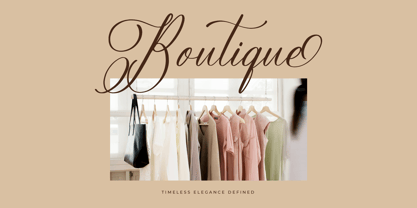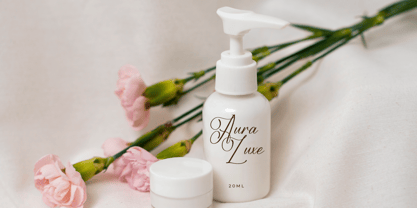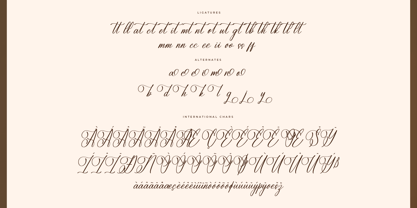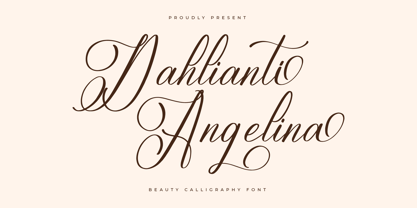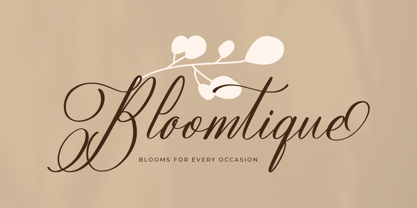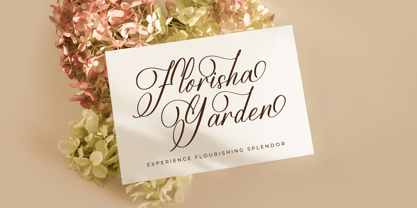
Dahlianti Angelina
The Dahlianti Angelina Font Family was designed by Heru Utama Putra and published by Letterena Studios. Dahlianti Angelina contains 2 styles and family package options. More about this family
Dahlianti Angelina – Beauty Calligraphy Font , from Letterena, is a Luxury Script font, suitable for any projects such as: logos, branding projects, homeware designs, product packaging, mugs, quotes, posters, shopping bags, t-shirts, book covers, name card, invitation cards, greeting cards, label, photography, watermark, special events, and all your other luxury and beautiful projects that need a Luxury Script taste.